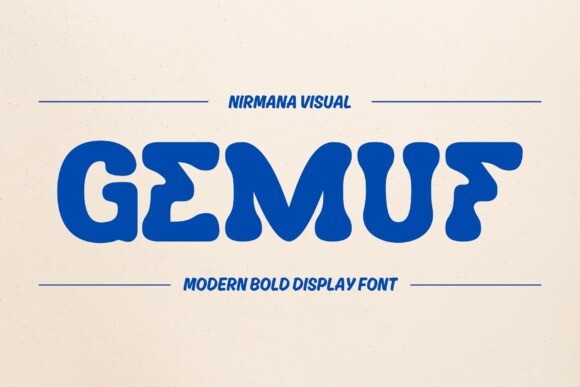
Gemuf Font– the quintessential Retro Branding Logo Font. This elegant typeface provides unparalleled typographic harmony, promising to enhance a vast array of design ventures. From dynamic, eye-catching logos and branding schemes to engaging social media posts, stunning advertisements, and innovative product designs, Gemuf is your all-in-one font solution. Included in the package are Gemuf.otf and Gemuf.ttf. So, let your creativity flow with Gemuf. Happy creating!